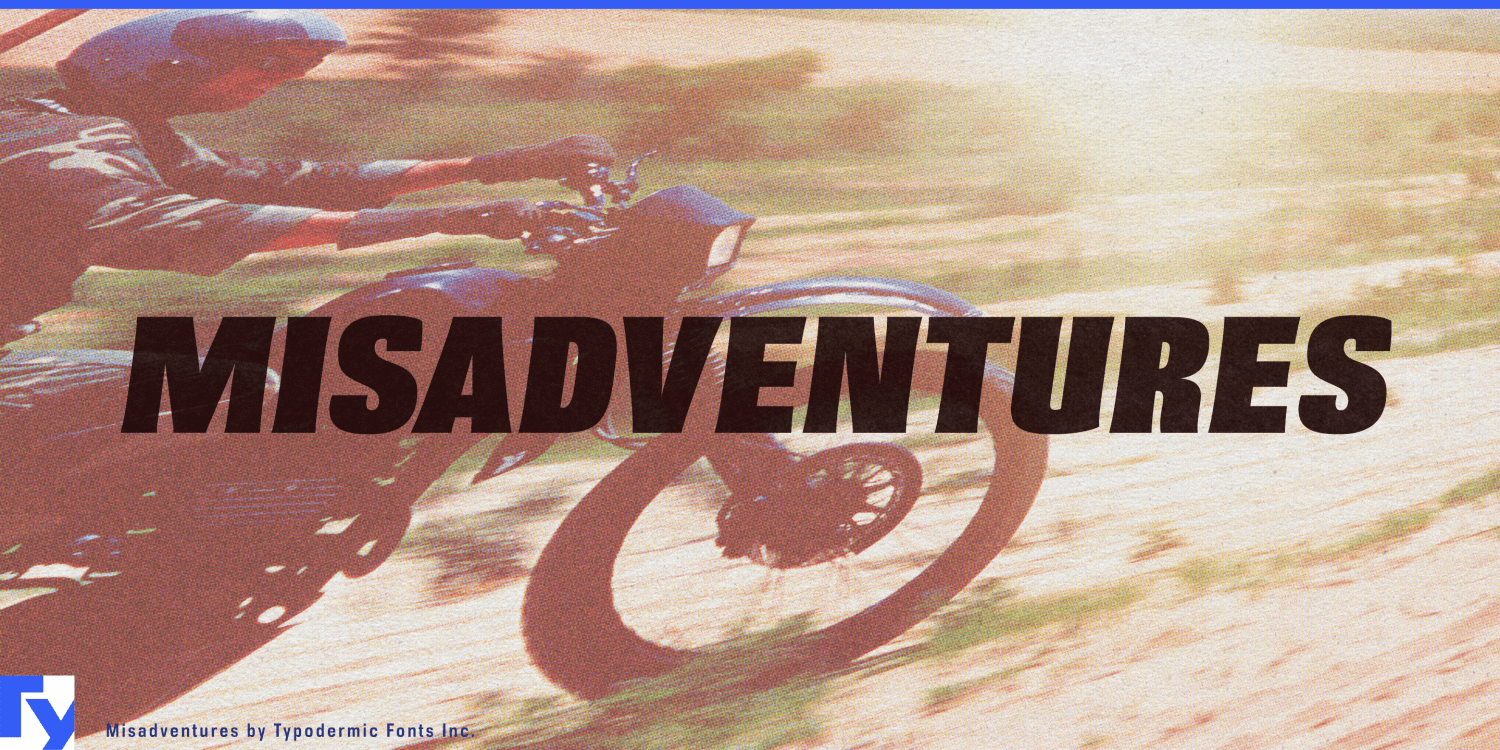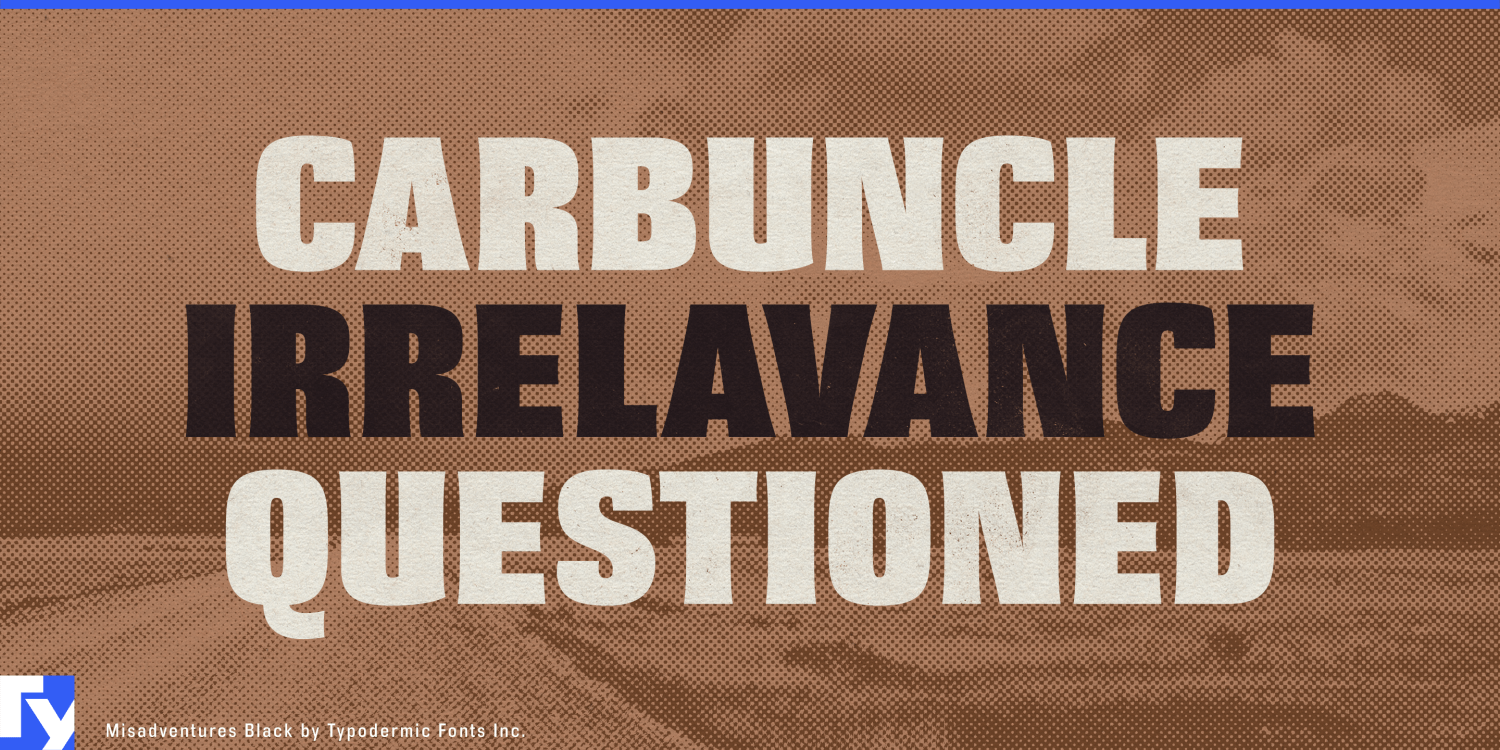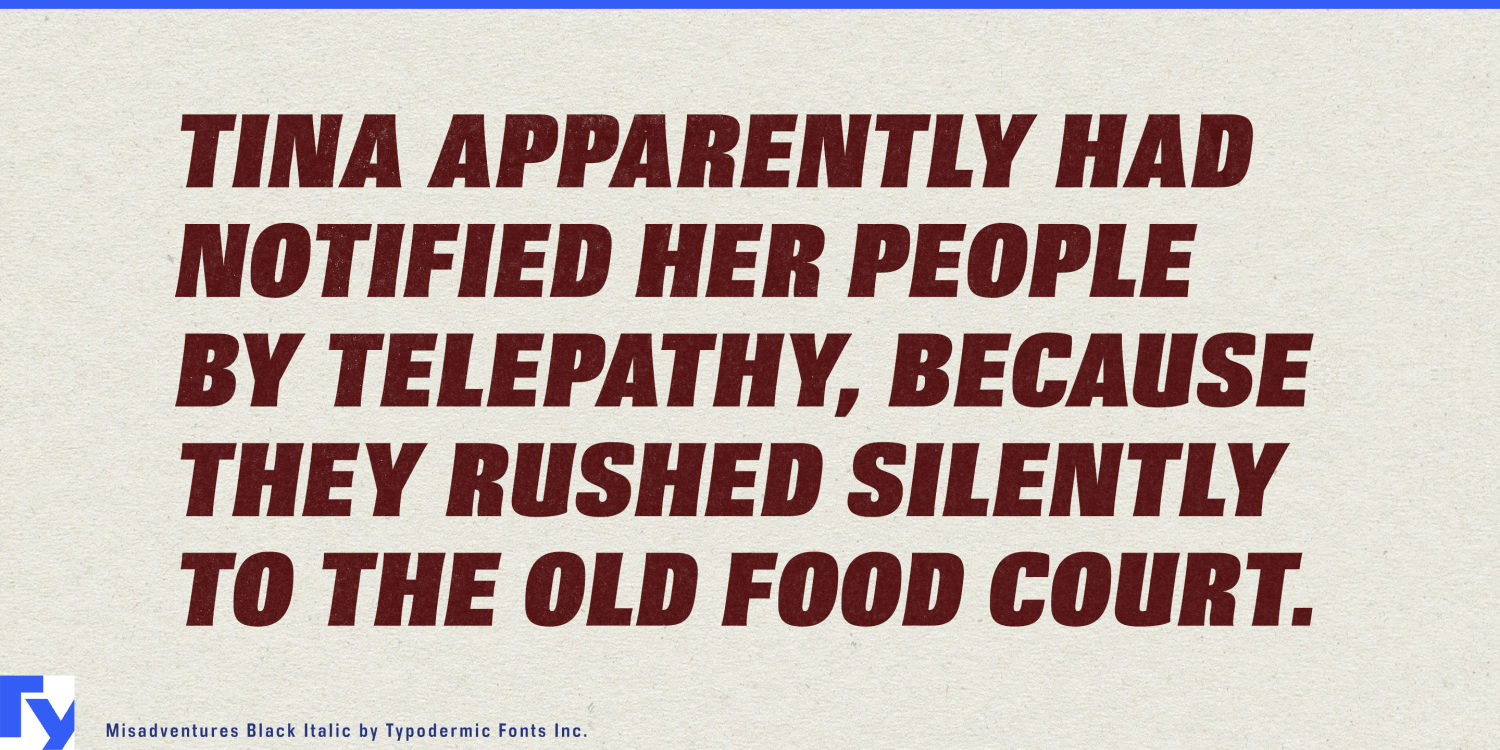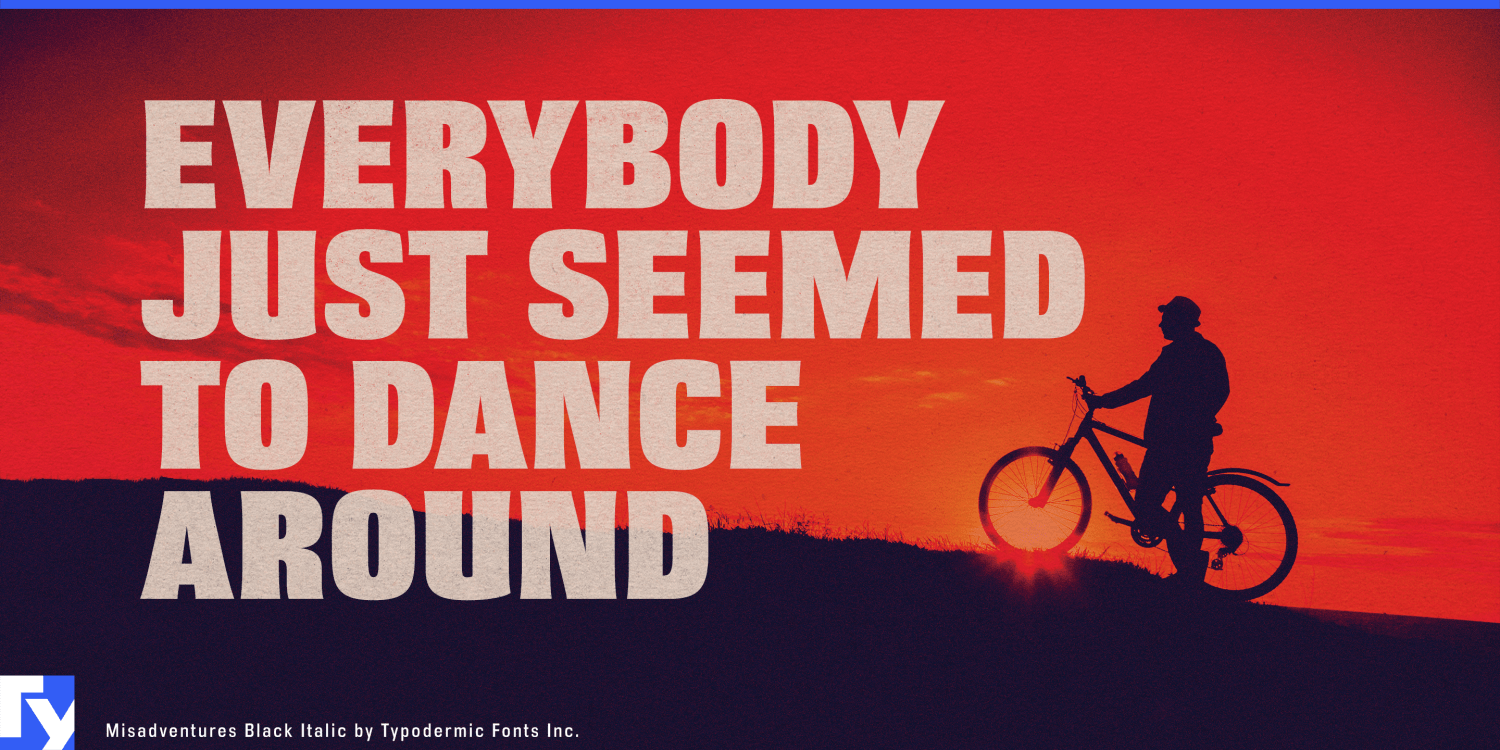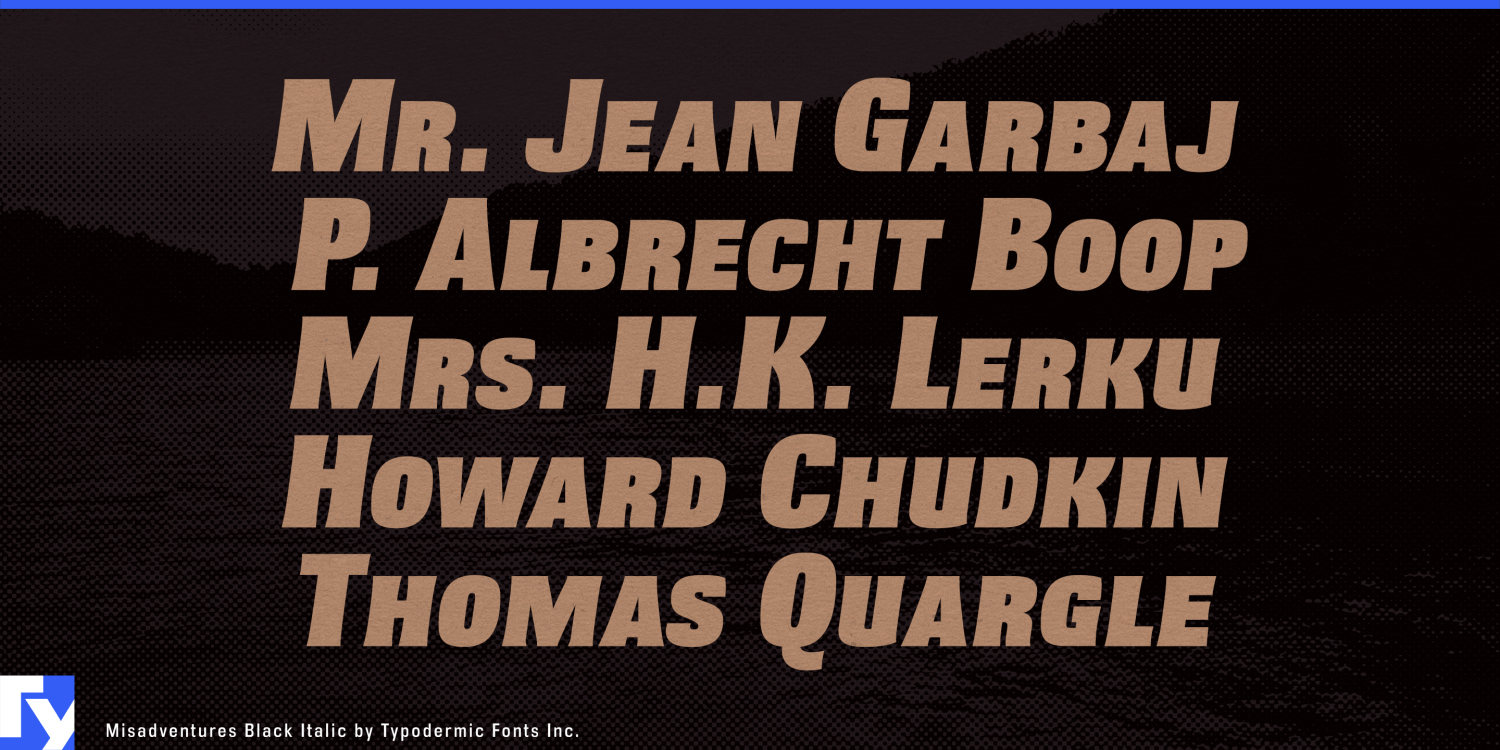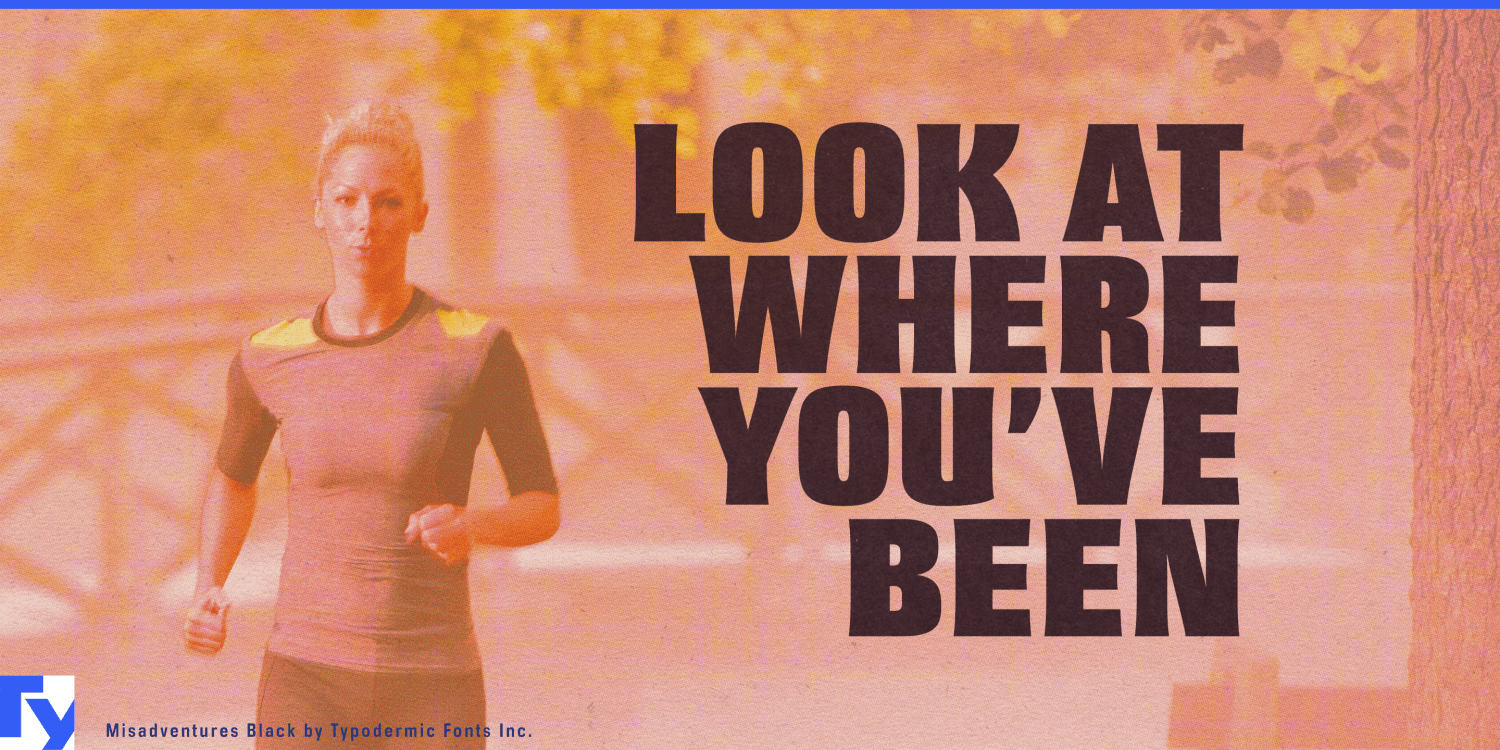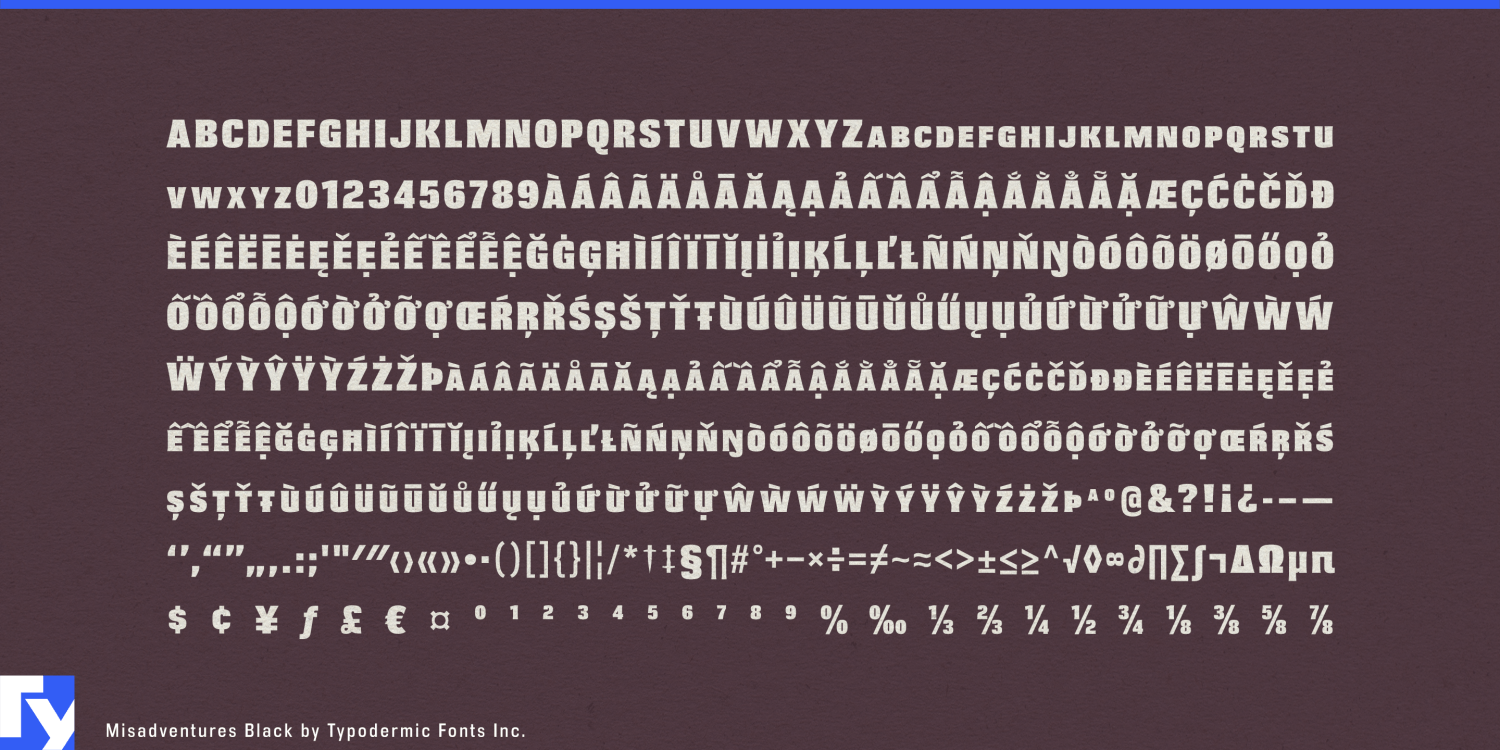
Misadventures
Font Family by Typodermic
Action lettering often works brilliantly at the top of a poster and runs out of usefulness a few lines later. Misadventures was originally commissioned for an action game, drawing on the scale and impact of cinematic title lettering, but its blocky small-cap construction gives it more range than a one-line bruiser. Set a title in capitals and it becomes a dense, imposing headline; mix upper- and lowercase input and large initials rise above smaller capitals, creating a built-in hierarchy for names, locations, model designations, credits, and short supporting lines.
The underlying shapes are heavy and angular, with a stencil influence that stops short of conventional military lettering. Small flares and sharp interruptions break up the rectangular mass, giving the letters a cut-metal, cinematic quality rather than a purely digital one. The italic carries the same structure into a more directional silhouette without abandoning the family’s basic shape.
That makes Misadventures particularly useful for action entertainment where one visual identity has to stretch across an entire campaign. Game key art can carry a massive title, then reuse the same lettering for mission headings, character introductions, location cards, chapter screens, trailer graphics, and promotional thumbnails. Action-thriller campaigns can move from the main title into cast names, episode graphics, stunt promotions, and short credits without switching visual languages.
Combat sports present a similar problem. Boxing, MMA, kickboxing, and wrestling graphics constantly alternate between event titles, fighter names, weight classes, bout pairings, countdowns, and statistics. Misadventures can make the main event enormous without forcing every other piece of information to shout at exactly the same scale.
The same structure transfers naturally to powersports. Motocross teams, rally-raid events, ATV and UTV equipment, snowmobiles, electric dirt bikes, helmets, recovery gear, and aftermarket performance parts all need lettering that can handle brand names, product families, model codes, race numbers, and short specifications. Misadventures has enough mass for vehicle graphics and event displays, while its smaller capitals help organize the naming systems surrounding them.
Its usefulness extends to rugged products such as power tools, recovery winches, protective equipment, and heavy-duty cases, where a manufacturer may need something more forceful than an ordinary industrial sans but still capable of carrying model names and equipment designations. Misadventures is a display face, but “display” here does not have to mean a single giant word.